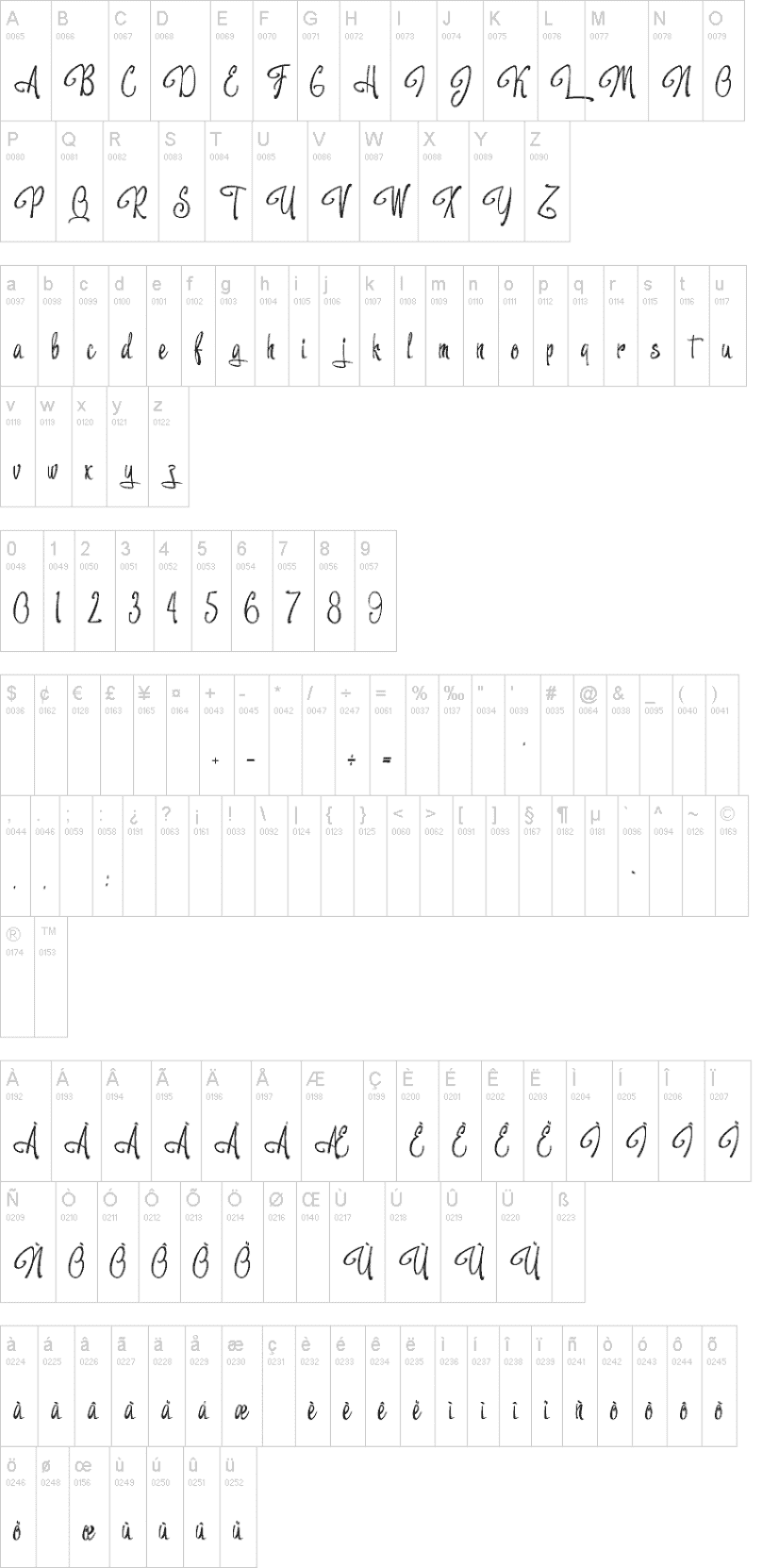
You can download the Night of the Dragons by Octotype font for free and use it for personal purposes only as it comes with a calligraphy style. This version includes all the lowercase alphabets in addition to some symbols that are present on the key board.